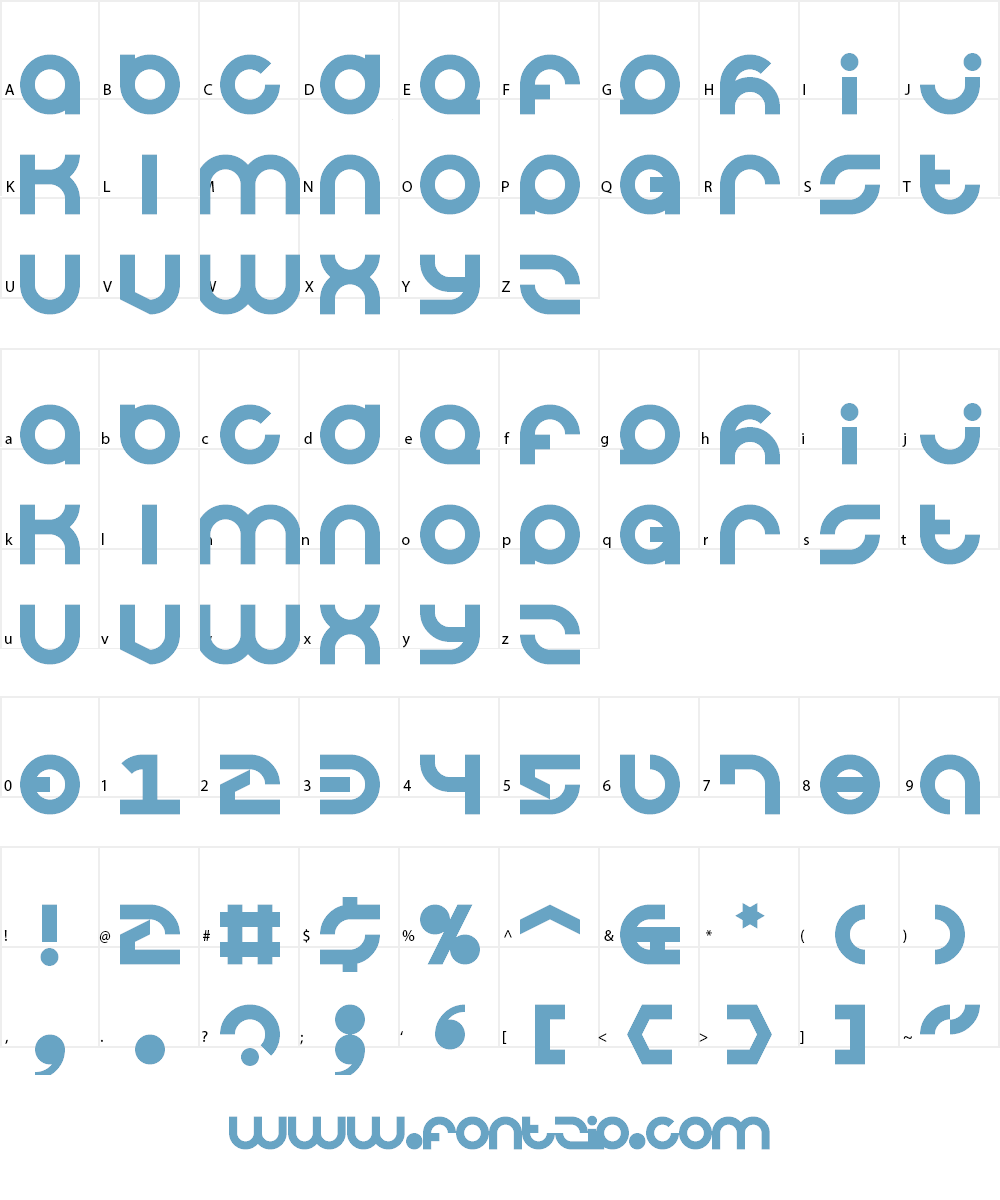
An experimental stemless super-minimal unicase design. It's small yet bold, much like Napoleon!
Supports Danish, Dutch, English, Finnish, French, German, Hungarian, Icelandic, Italian, Norwegian, Portuguese, Spanish, and Swedish.